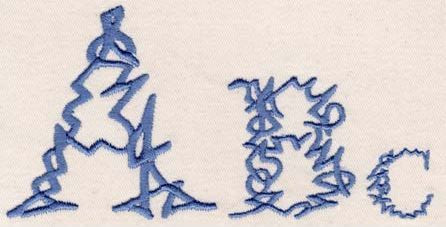
215 Squigle Line Font
Squigle Font comes in 1", 2" and 3" heights. Traditional Times Roman shape filled with squigled satin stitched lines. Uppercase, lowercase, numbers and four punctuations. All letters individually fit standard 4x4 hoops.